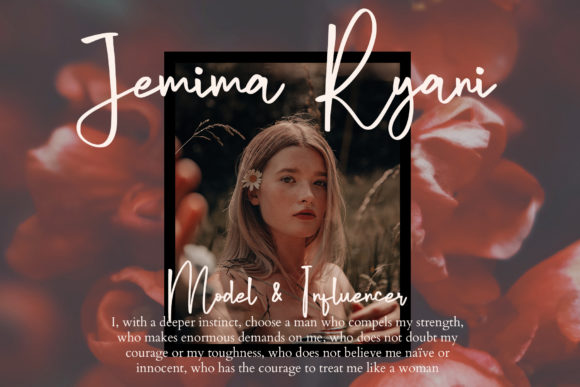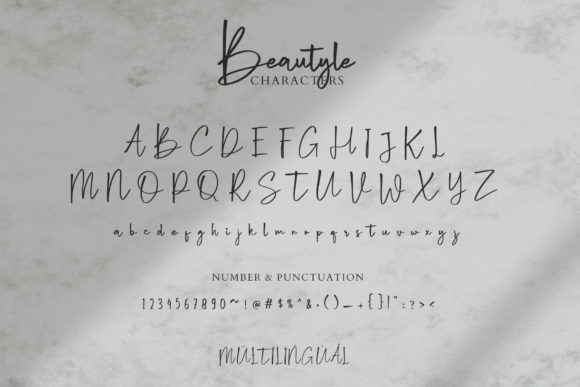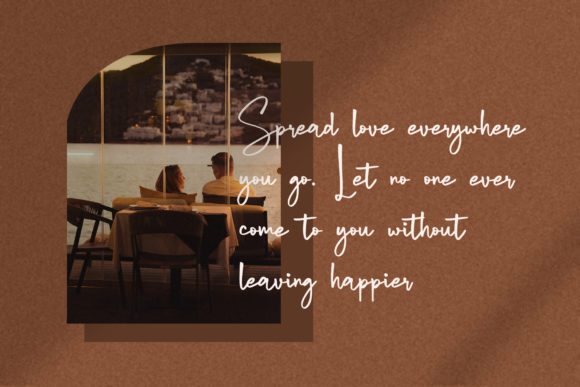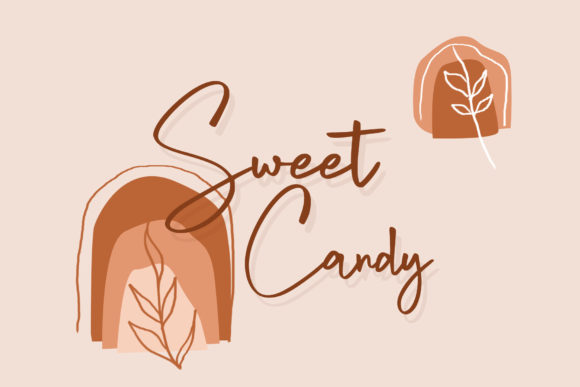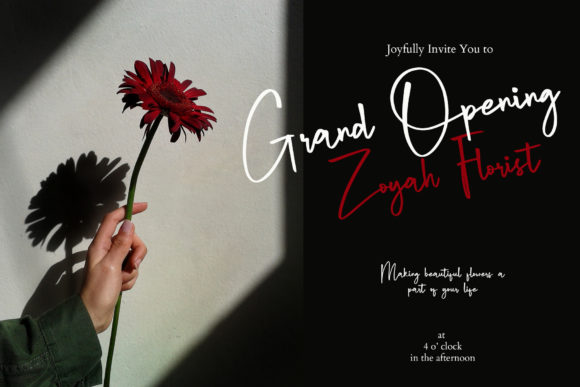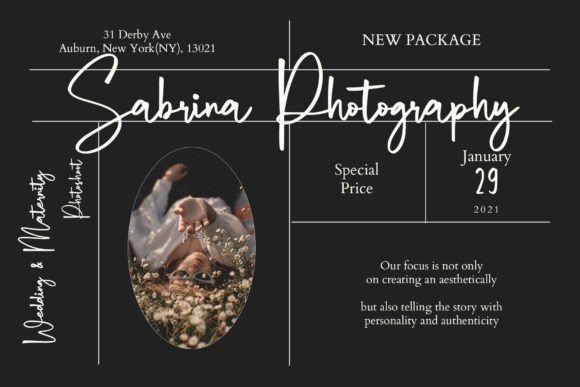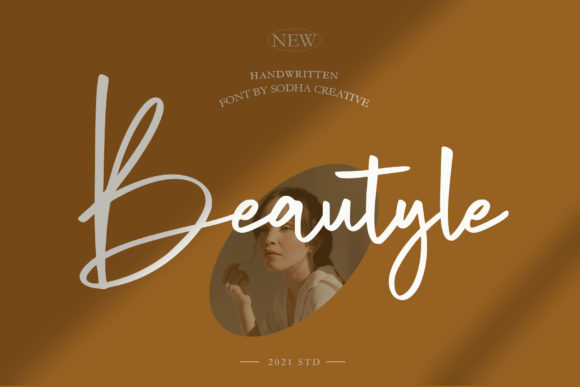
Introducing Beautyle Font: Elevate Your Designs with Modern Elegance
In the world of typography, a font can make or break a design. For crafty enthusiasts and professional designers alike, finding the perfect typeface can be a daunting task. However, if you’re looking for a modern script font that exudes elegance and versatility, look no further than Beautyle Font. This stunning font is designed to cater to a wide range of creative projects, from letterheads and titles to stationery and more.
What is Beautyle Font?
Beautyle is a modern script font that boasts a unique blend of sophistication and playfulness. Its flowing lines and delicate curves make it perfect for adding a touch of elegance to any design. Whether you’re working on a branding project, creating custom stationery, or designing eye-catching titles, Beautyle Font is the ideal choice.
Key Features of Beautyle Font
• Versatility: Beautyle Font is designed to be versatile, making it suitable for a wide range of applications, from formal letterheads to creative stationery.
• Modern Aesthetic: With its modern script style, Beautyle Font adds a touch of sophistication to any design.
• Elegant Lines: The font’s flowing lines and delicate curves create a sense of elegance and refinement.
• Easy to Read: Despite its ornate appearance, Beautyle Font remains easy to read, making it perfect for body text and headings.
Uses of Beautyle Font
Beautyle Font is perfect for a variety of design projects, including:
• Letterheads: Add a touch of elegance to your business correspondence with Beautyle Font.
• Titles and Headings: Create eye-catching titles and headings for your blog posts, articles, and social media graphics.
• Stationery: Design custom stationery, including invitations, greeting cards, and thank-you cards.
• Branding: Use Beautyle Font to create a cohesive brand identity that exudes sophistication and elegance.
Tips for Using Beautyle Font
To get the most out of Beautyle Font, here are a few tips to keep in mind:
• Pair with Simple Fonts: Pair Beautyle Font with simple, sans-serif fonts to create a striking contrast.
• Use for Headings: Use Beautyle Font for headings and titles to add visual interest to your designs.
• Experiment with Colors: Experiment with different colors and textures to add depth and interest to your designs.
In conclusion, Beautyle Font is a stunning modern script font that offers a unique blend of elegance and versatility. Whether you’re a professional designer or a crafty enthusiast, this font is perfect for adding a touch of sophistication to your designs. With its flowing lines, delicate curves, and easy-to-read style, Beautyle Font is sure to become a staple in your design toolkit.